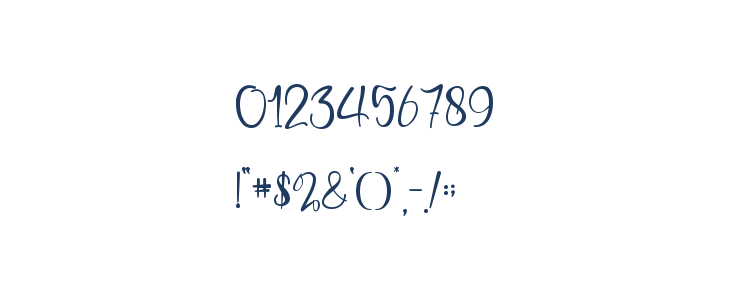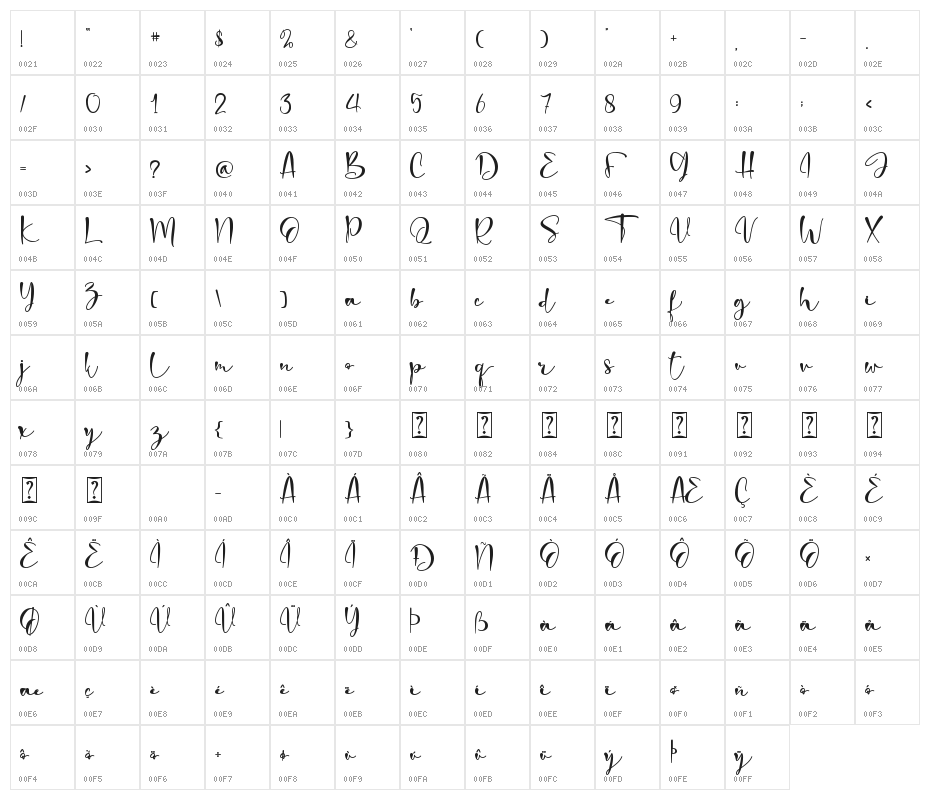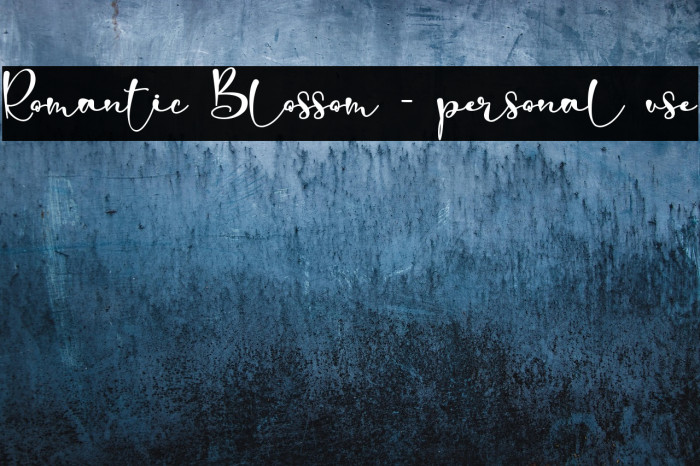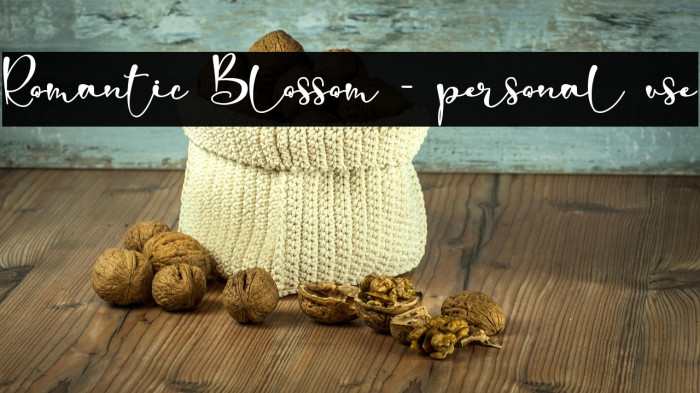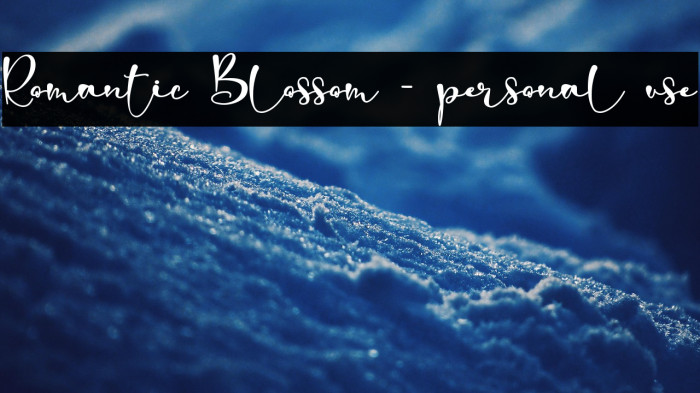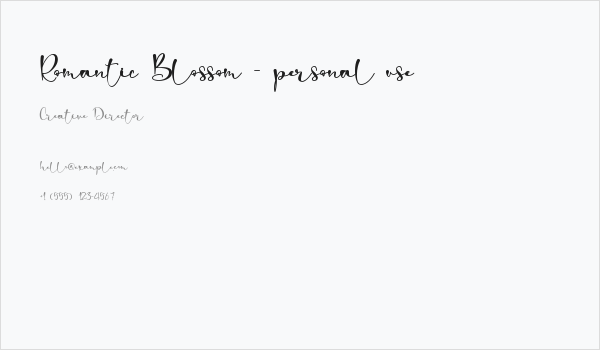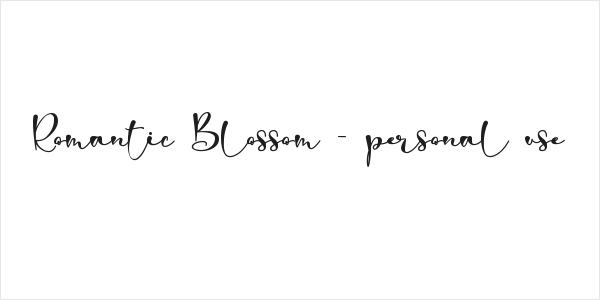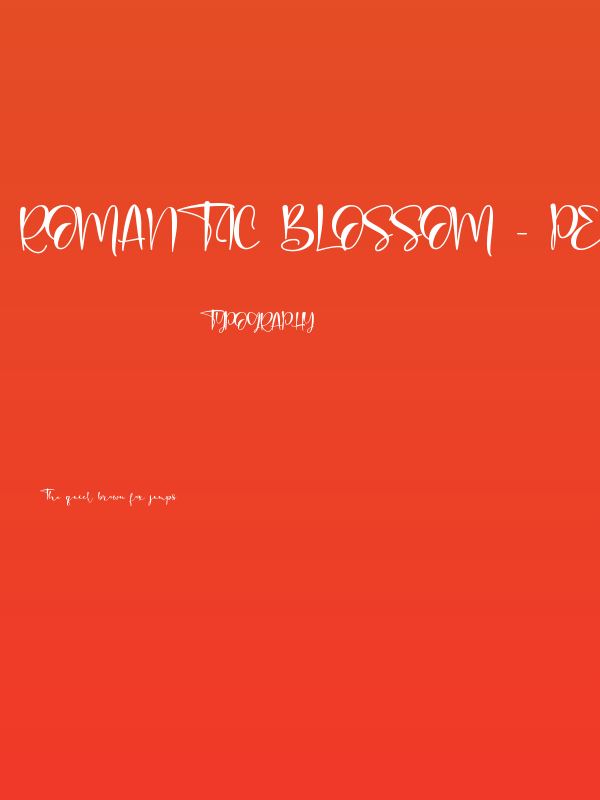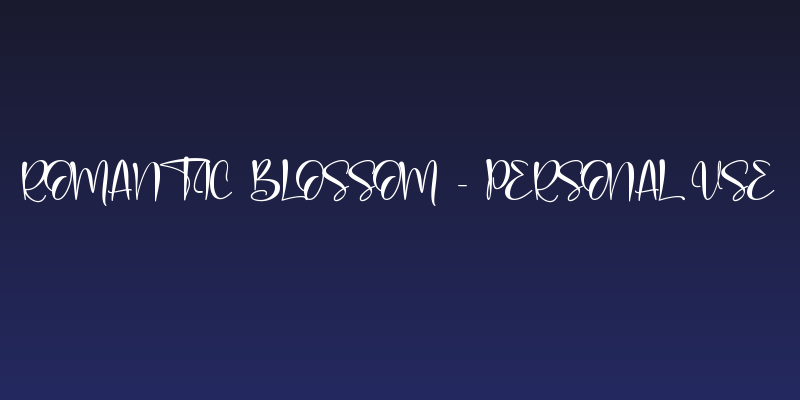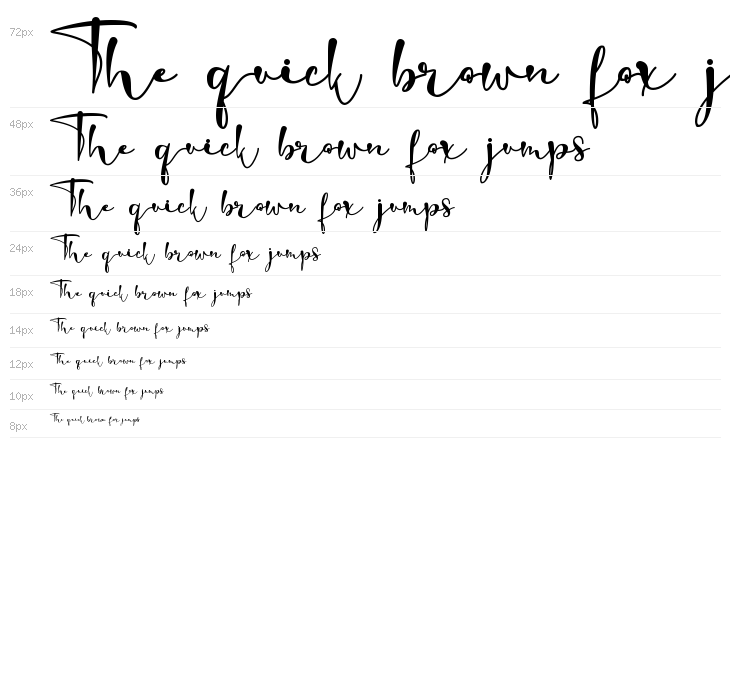
This font exudes a whimsical and romantic charm, characterized by its flowing, cursive style. The uppercase letters are elegantly crafted with sweeping curves and loops, giving them a sense of movement and grace. The lowercase letters maintain a consistent style, with a playful yet sophisticated appearance. The numbers are bold and clear, maintaining the same fluidity as the letters. Special characters are creatively integrated, adding to the font's overall artistic appeal. This font is perfect for projects that require a touch of elegance and creativity, such as wedding invitations, greeting cards, and branding materials.
| Overall Style | Romantic, Decorative |
| Proposed Projects | Ideal for wedding invitations, greeting cards, branding, and decorative projects. |